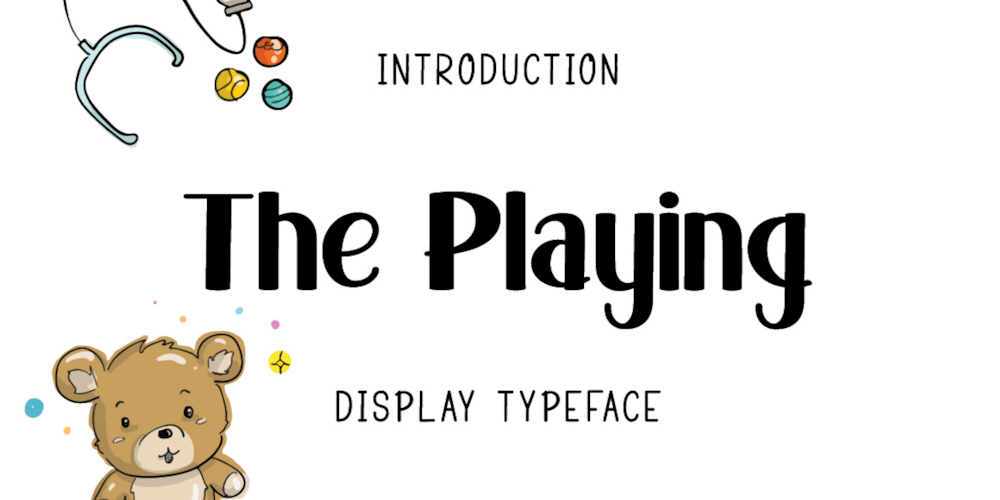
The Playing
The Playing font
The Playing Font Family was designed by Symon Adam Abdullah and published by Jorsecreative. The Playing contains 3 styles and family package options. Introducing !The Playing are 3 Fonts made in thick norms and mono lines that cover all upper and lower case letters, also European letters. This font is very suitable to be applied to children’s displays in the form of Games, T-Shirts, Books, Mugs, Mock Ups, Greeting Cards and others. Thanks